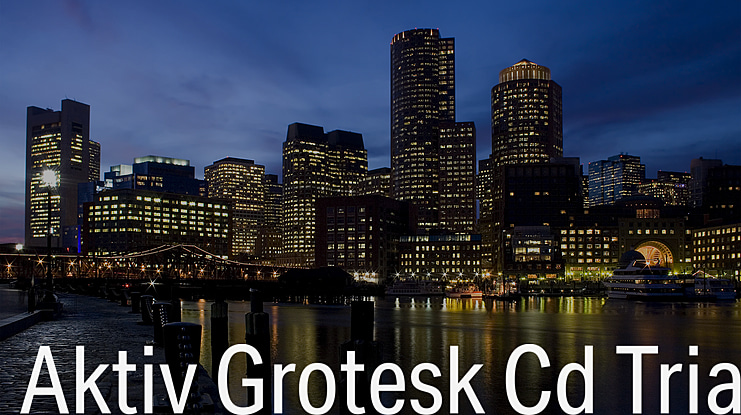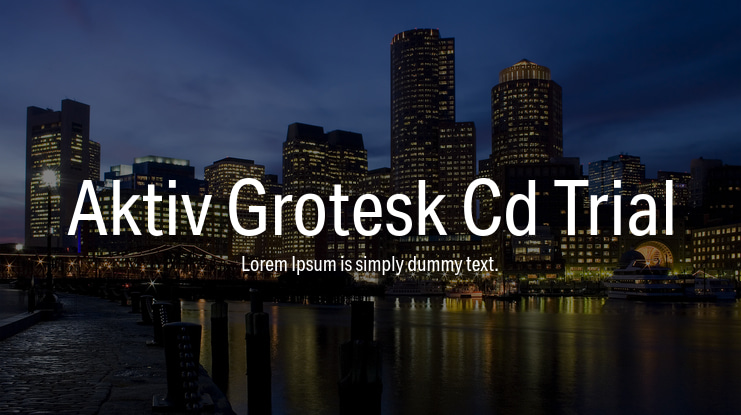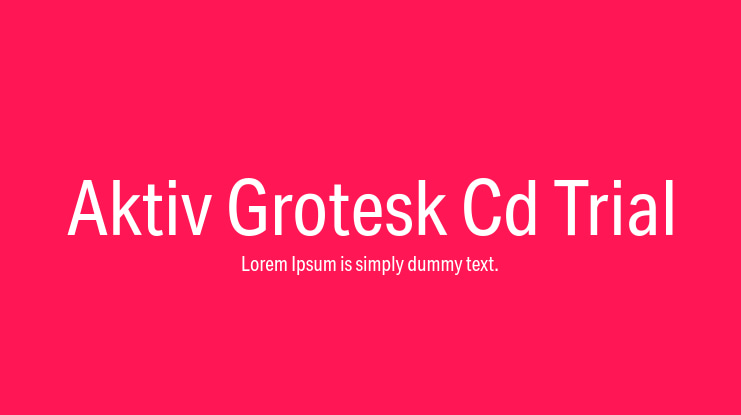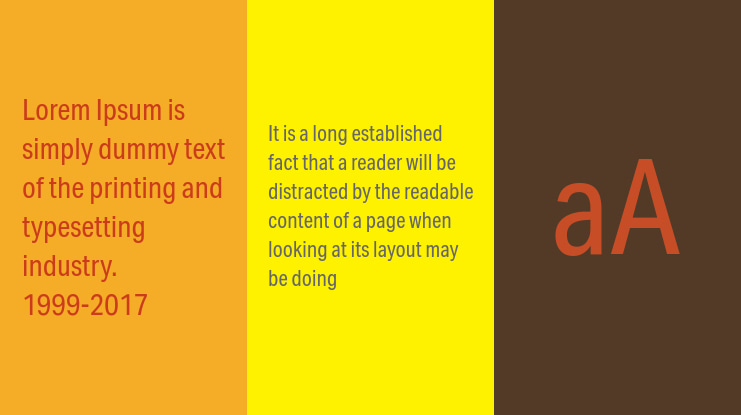
Aktiv Grotesk Cd Trial Font Family
Dalton Maag Ltd
This is a condensed sans serif font crafted & designed by daltonmaag. Aktiv Grotesk is therefore an ideal choice for branding exercises which require a diverse use of type, or where quiet authority is needed. Unlike many other grotesque font families, Aktiv Grotesk was specifically designed to stay true to the grotesque tradition. You will find that Aktiv Grotesk pairs well with robust serif fonts, such as the Cordale, King’s Caslon, and Lexia font families.